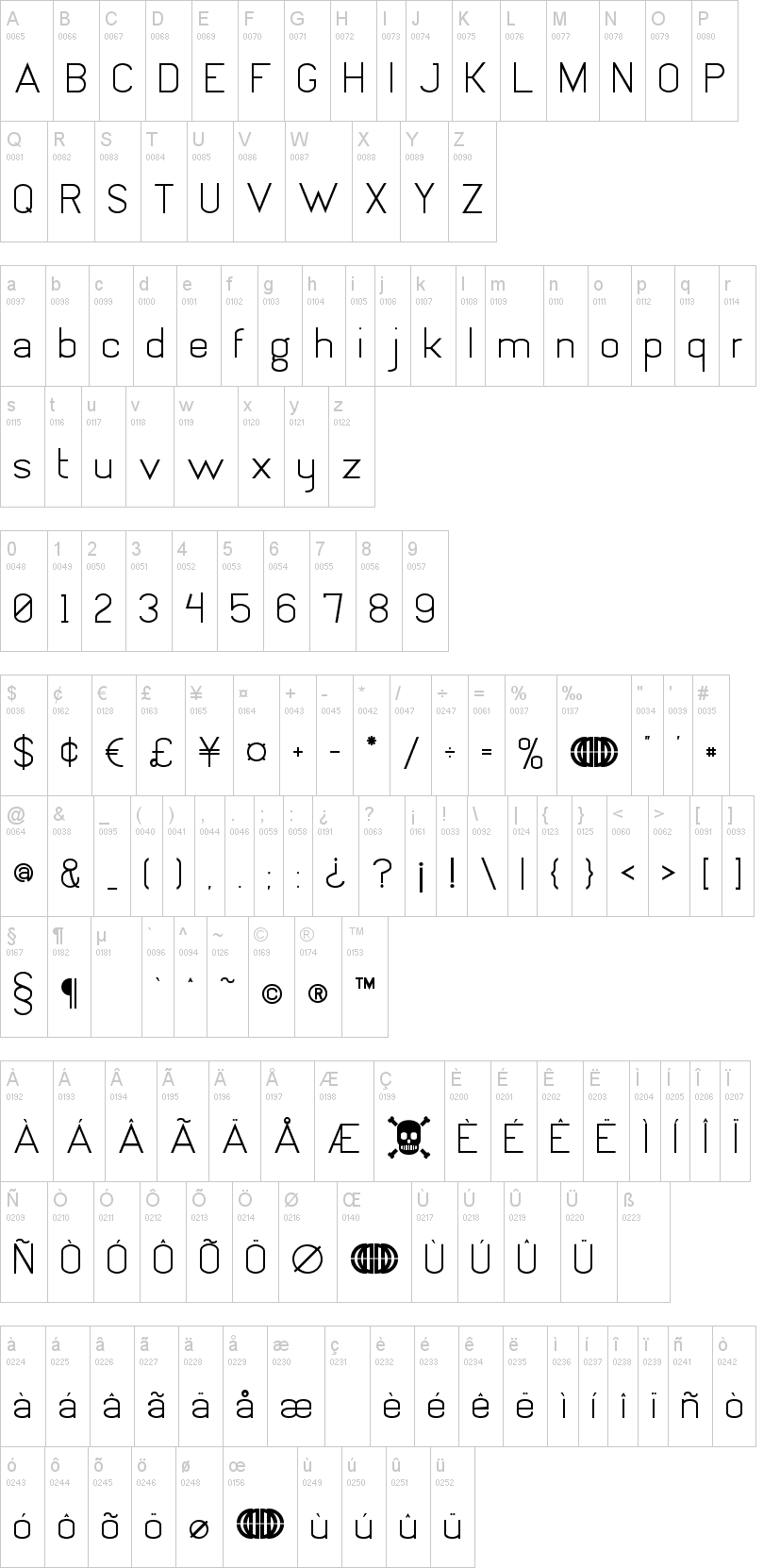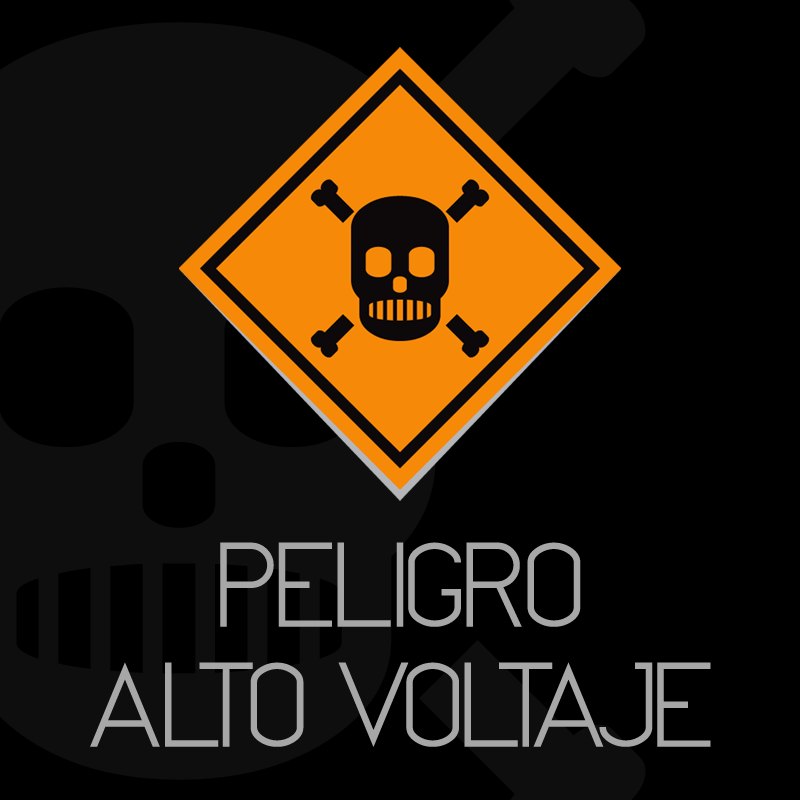
One thing I love about living where I live is that all of the major street signage is completely inconsistent, and sometimes even hand made. I saw a sign on some power lines that read PELIGRO ALTO VOLTAJE with a hilarious looking skull and crossbones, and that is what inspired this font.
This is a HIGH VOLTAGE sans serif font for your collection. This font could be used for some nice signage of your own, body type, ad copy, and more!